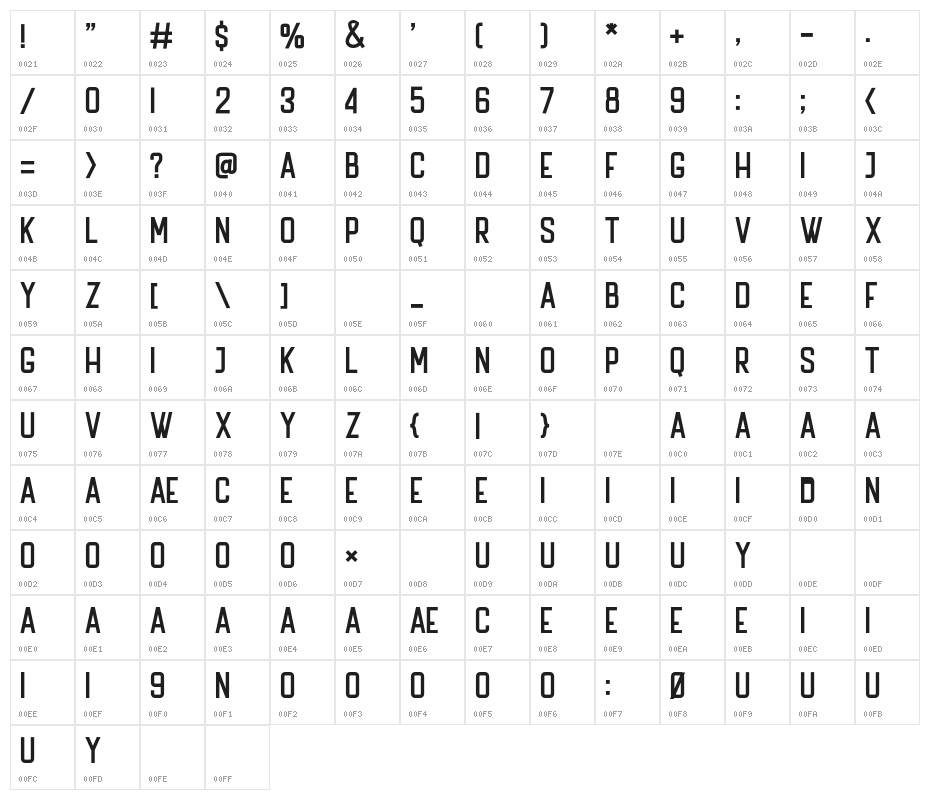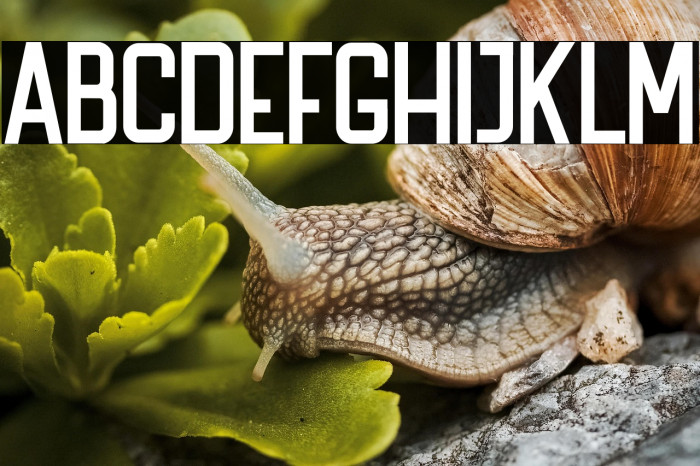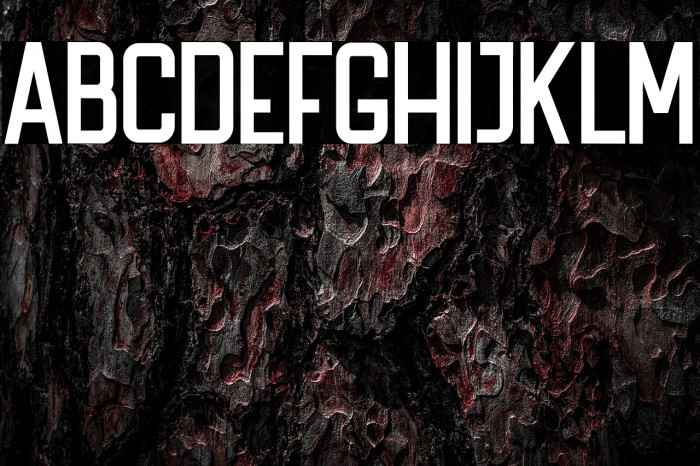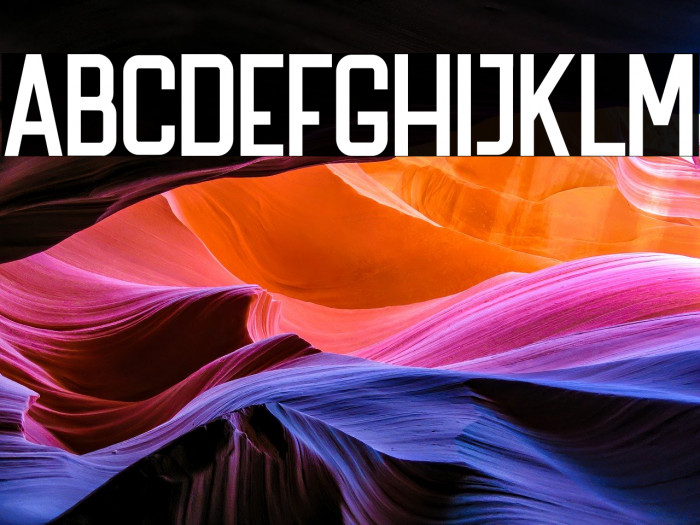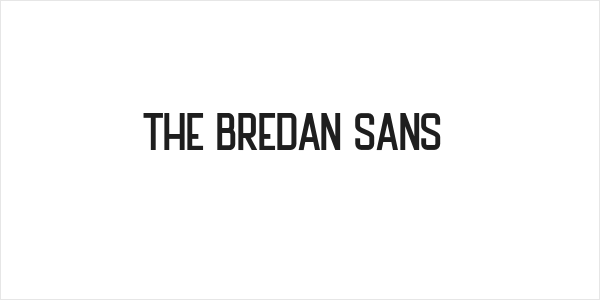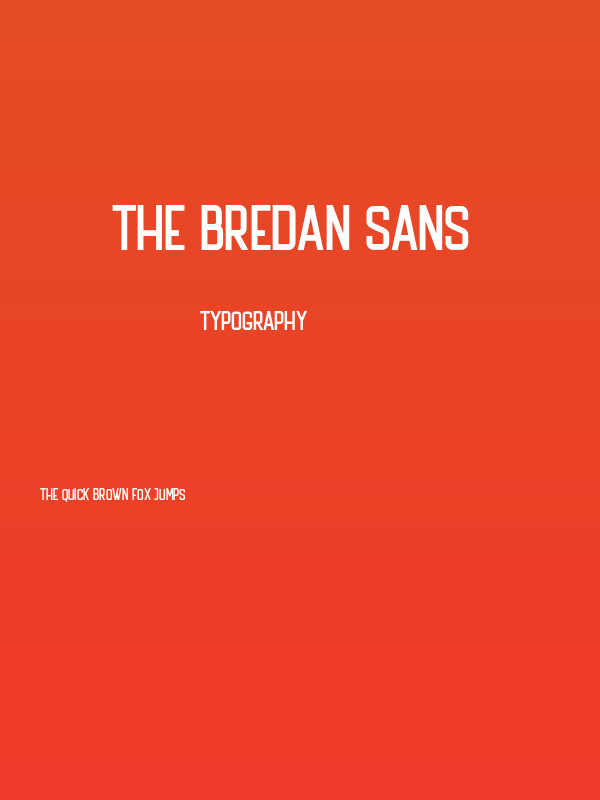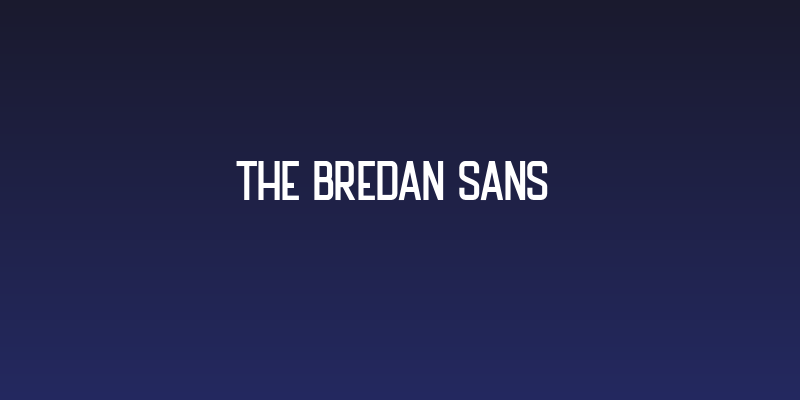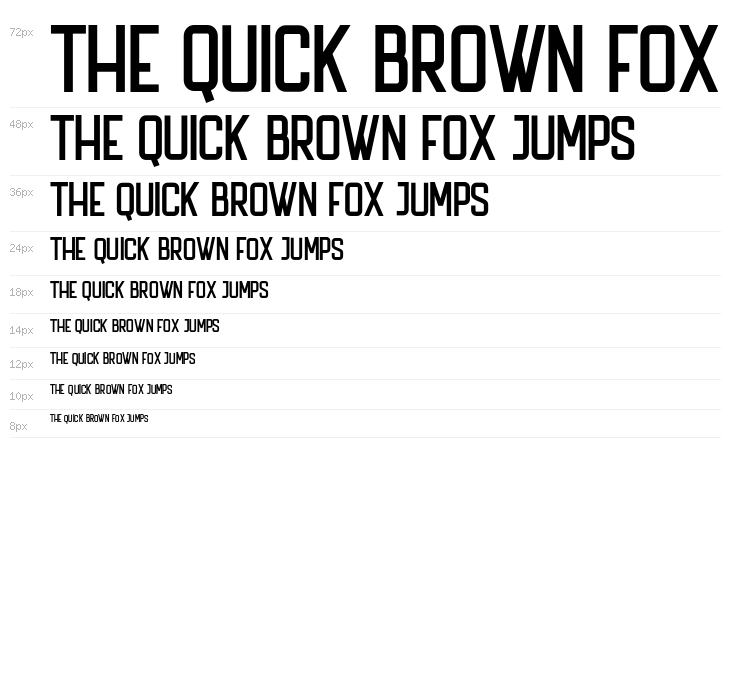
The Bredan Sans Font
The Bredan Sans Description
This font features a bold and geometric sans-serif style with clean, straight lines and a modern aesthetic. The characters are uniformly structured, offering a sense of balance and clarity. The uppercase letters are prominent and assertive, while the lowercase letters maintain a consistent height and width, enhancing readability. Numbers are clearly defined, and the special characters are designed to match the overall boldness of the font. The font's design is versatile, making it suitable for various applications where a strong visual impact is desired.
| Proposed Projects | Ideal for branding, headlines, posters, and digital media where a strong, modern look is needed. |